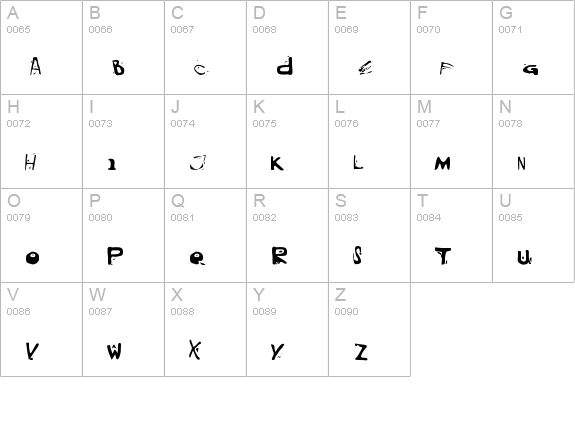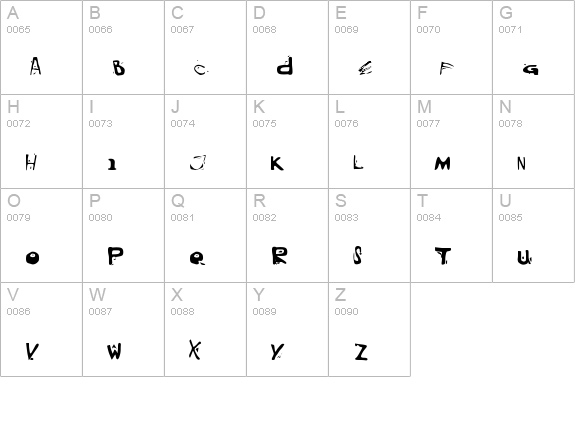
Evil Mail Font Details
Introducing Evil Mail font, a striking and sinister typeface that embodies the essence of darkness and mystery. This unique font features sharp edges and intricate details, perfect for adding a touch of wickedness to your designs. With its gothic-inspired aesthetic, Evil Mail is ideal for projects that require a bold and edgy look. Best of all, Evil Mail font is available for free download at FontsMarket.com. So unleash your creativity and give your designs an eerie and menacing vibe with this captivating font. Whether you're working on a Halloween-themed project, a horror movie poster, or a spooky website, Evil Mail is sure to make a lasting impression. Download it today and add a touch of evil to your creations!